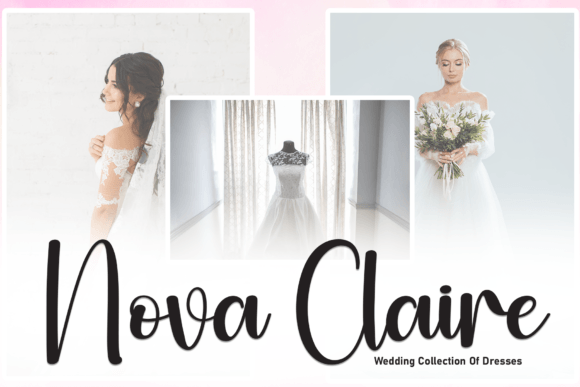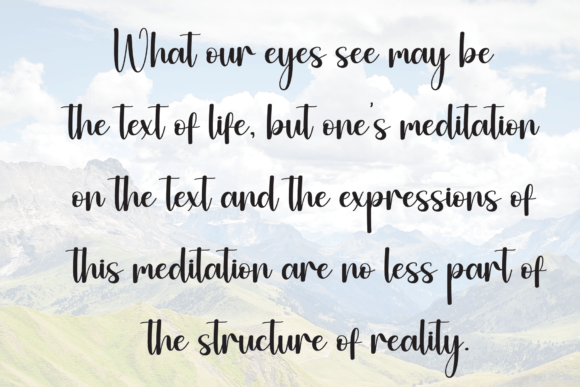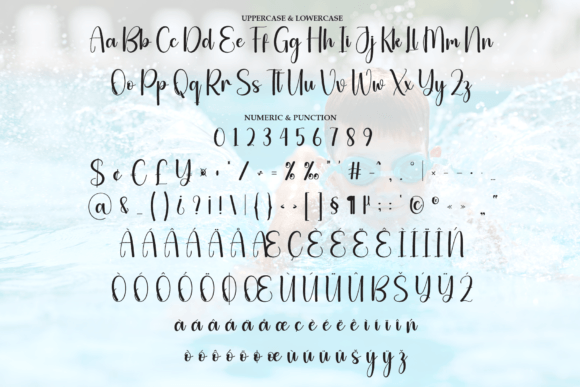
Introduction to Happy Swimming Font
Do you ever find yourself lost in a sea of design inspiration, searching for that perfect font to bring your creative project to life? I know I do! One day, while browsing through a design resource website, I stumbled upon the Happy Swimming Font, and it immediately caught my eye. This sweet and friendly handwritten display font is the perfect addition to any design that needs a fun touch.
Key Features of Happy Swimming Font
- High-quality design resource ideal for creative projects, including posters, flyers, and social media graphics.
- Unique, playful design with a transparent background, making it easy to use on any background.
- Large character set with over 1000 glyphs, including Latin and Cyrillic alphabets.
- High-resolution design (300 DPI) suitable for printing and digital use.
- Perfect for designers looking for a fun and modern font to add a touch of whimsy to their designs.
- Supports a wide range of languages, making it a versatile design resource for international projects.
Honest Review: Happy Swimming Font
I recently stumbled upon the Happy Swimming Font and was excited to give it a try. As a designer, I’m always on the lookout for high-quality design resources to elevate my creative projects. This font definitely fits the bill.
What works well is the font’s playful and whimsical feel. The Happy Swimming Font is perfect for projects that require a lighthearted and fun touch. I love that it’s available as a free download, making it a great option for designers on a budget.
Here are some of the font’s key features:
- High-quality design: The Happy Swimming Font is well-designed and visually appealing.
- Transparent background: This makes it easy to use the font on any background without worrying about a white or colored outline.
However, there are a few limitations to keep in mind: ⚠️ The font only comes in a limited range of styles and weights, which may not be suitable for all projects. Additionally, some users may find the font’s playful feel too casual for more formal designs.
Overall, I’m impressed with the Happy Swimming Font. It’s a great addition to any designer’s toolkit, and I can see it being used in a variety of creative projects. With its high-quality design and transparent background, it’s a great resource for designers who want to add a touch of whimsy to their work. ✨
How to Use Happy Swimming Font
The Happy Swimming Font is a high-quality design resource perfect for adding a playful touch to your creative project. With a transparent background, it’s easy to integrate into any design.
To maximize the impact of the Happy Swimming Font, consider the following tips:
- Use it in combination with bold colors and playful graphics.
The Happy Swimming Font is perfect for:
- Designing children’s books and educational materials.
- Creating social media graphics and promotional materials.
- Adding a whimsical touch to wedding invitations and party decorations.